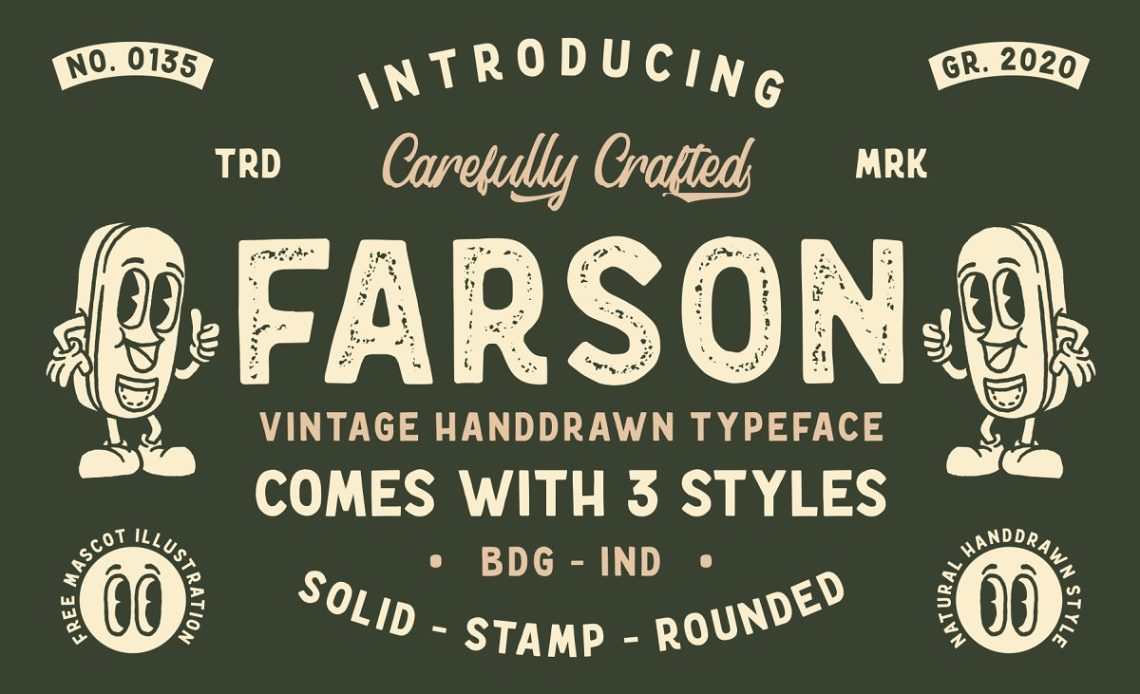
Introducing Farson - Vintage Typeface, the best font for address stamp! Created by Risman Ginarwan, this font is the perfect combination of vintage and classic, giving your designs a timeless feel.
Farson was born from an inspiring vintage display, and its handmade look makes it a great choice for anyone looking for a vintage aesthetic or logo-type. This sans serif font family comes in three styles - Farson Solid, Farson Stamp, and Farson Rounded - all of which are available in OTF, TTF, and WOFF formats.
When you download Farson, you get access to all glyphs with Caps styles, numerals, punctuations, and multilingual characters, making it suitable for use in any graphic design project, such as branding materials, t-shirts, prints, business cards, logos, posters, photography, quotes, and more.
Whether you're a professional designer or just starting out, Farson - Vintage Typeface is the perfect choice for anyone looking to elevate their designs with a touch of vintage charm.